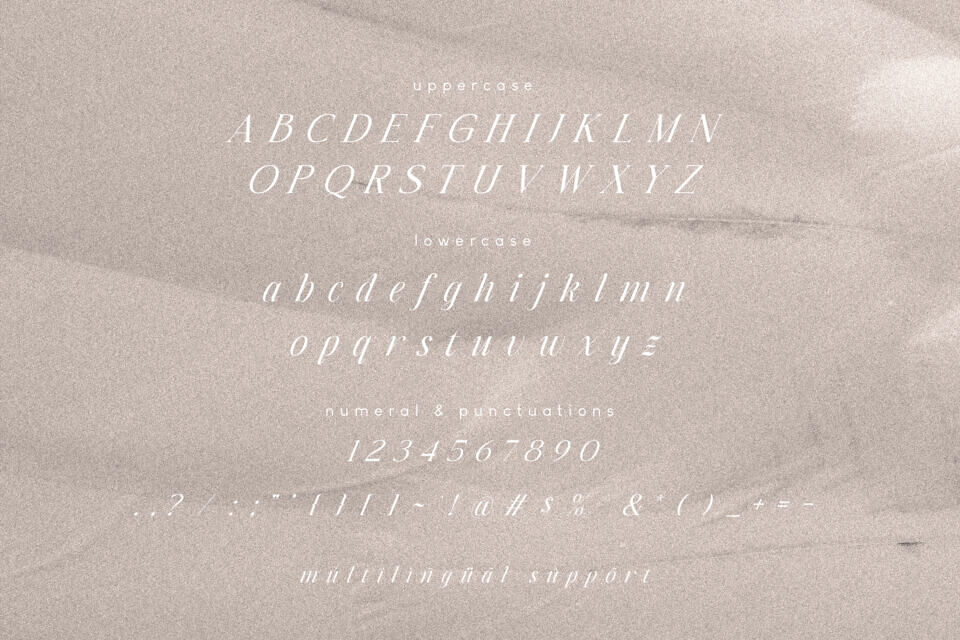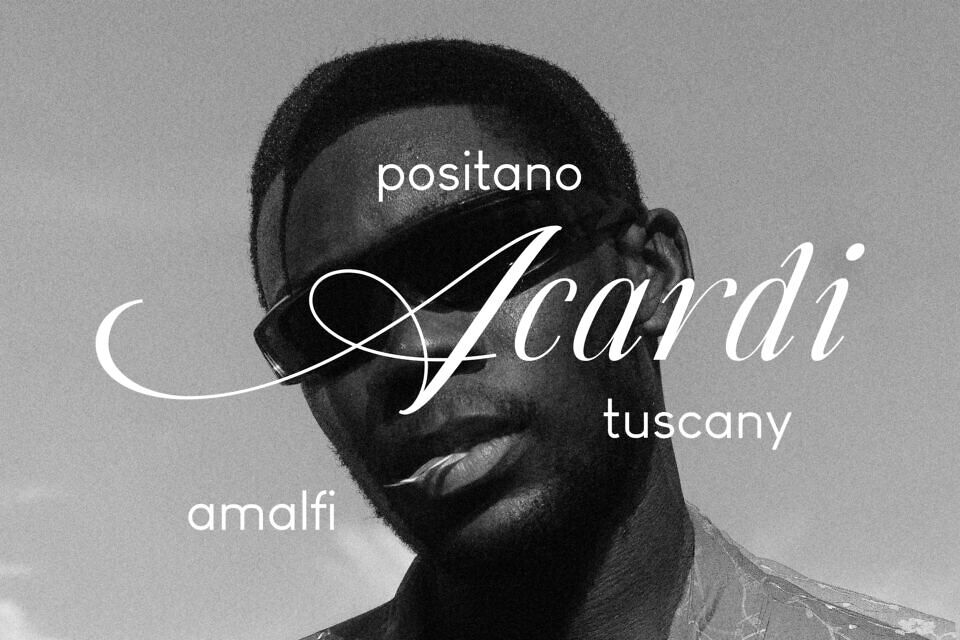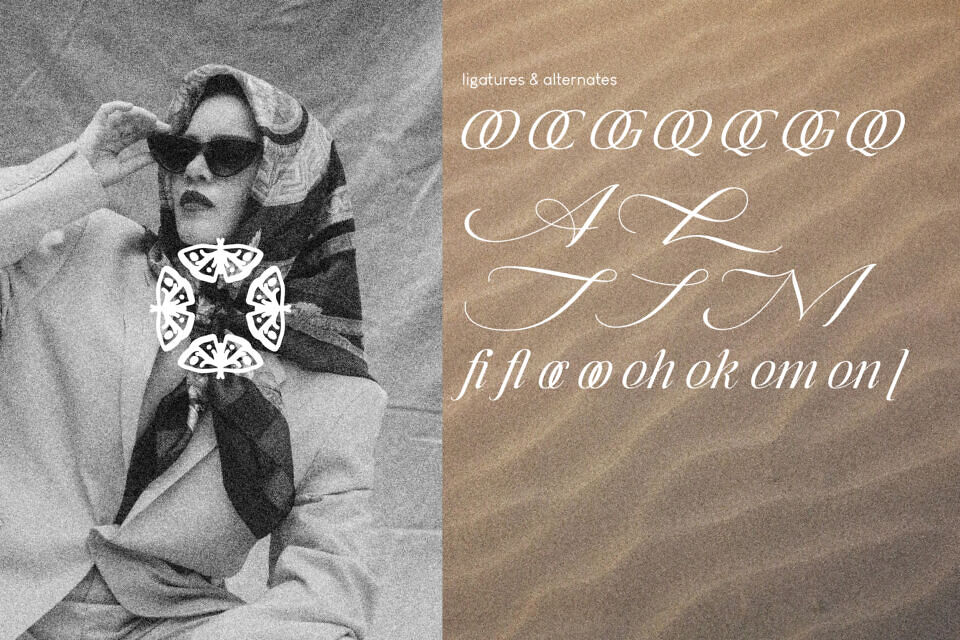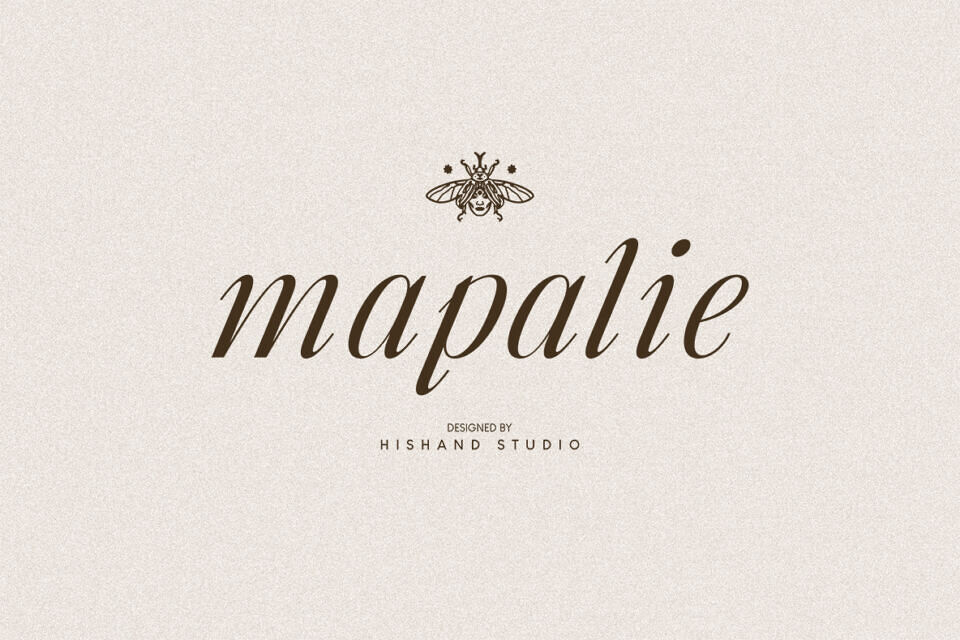
Mapalie Font
Meet Mapalie, an italic serif font that brings a touch of elegance, class, and luxury to your creative projects. Designed with smooth curves, refined letterforms, and stylish details, each character flows gracefully, giving your text a timeless and sophisticated appearance.
The italic style introduces just the right amount of movement and personality, making Mapalie not only beautiful to read but also expressive in tone.
This font is perfect for projects where elegance matters most. Whether you’re working on high-end branding, wedding invitations, editorial layouts, or fashion lookbooks, Mapalie delivers a polished and professional aesthetic. Its luxurious feel also makes it a wonderful choice for packaging, logos, and digital designs that aim to leave a lasting impression.